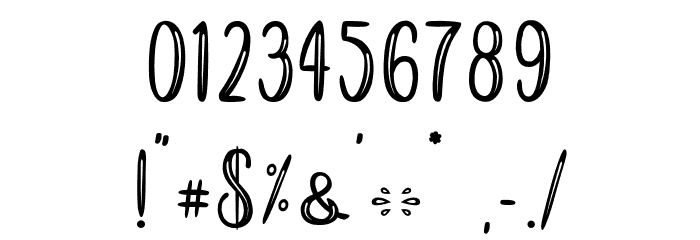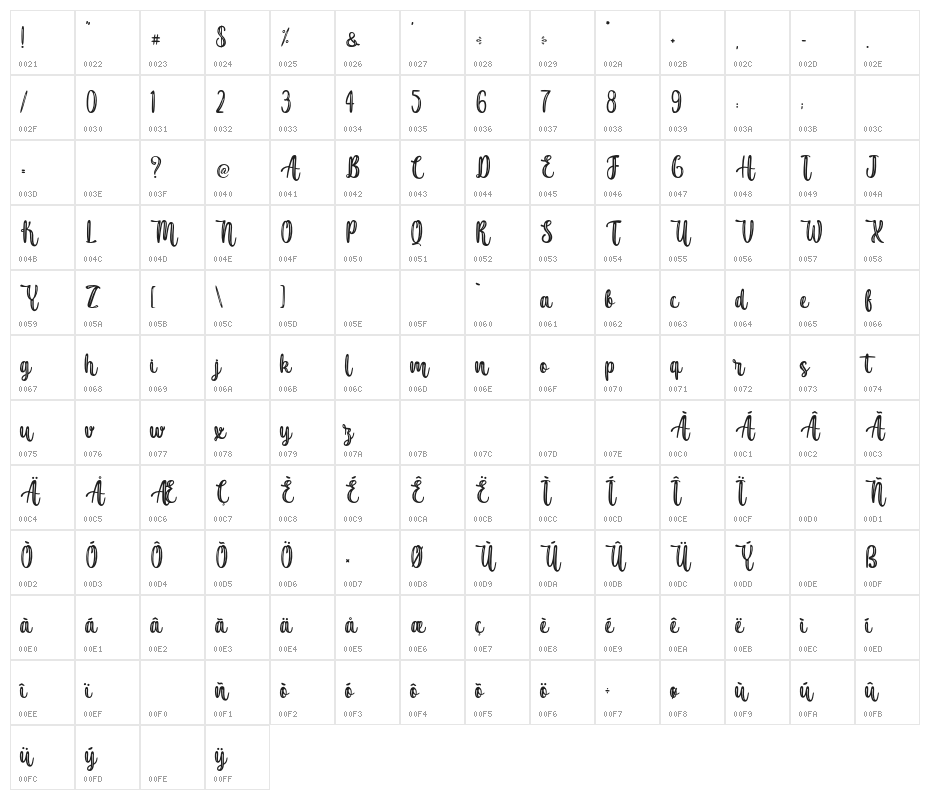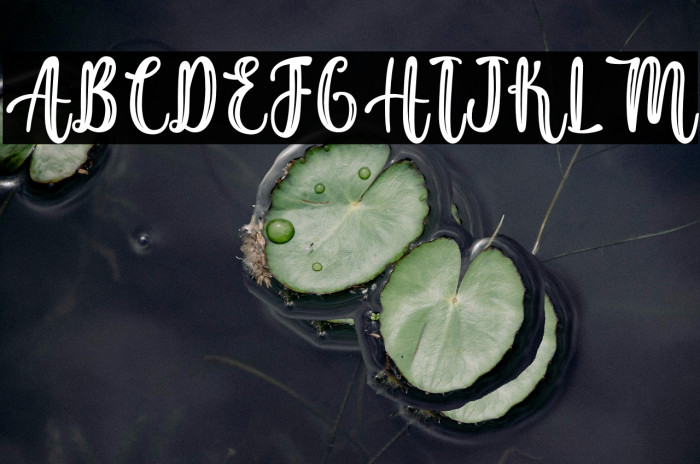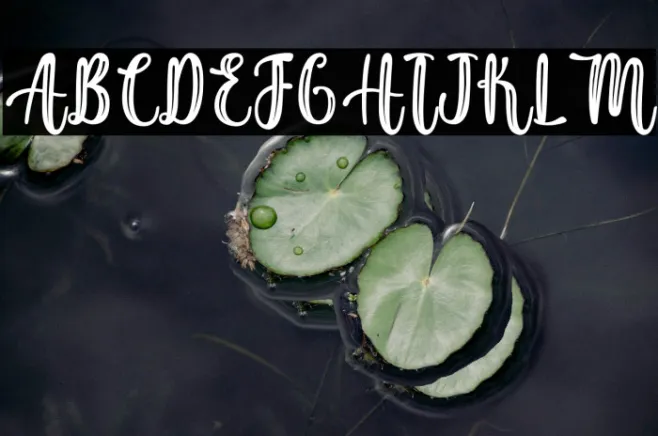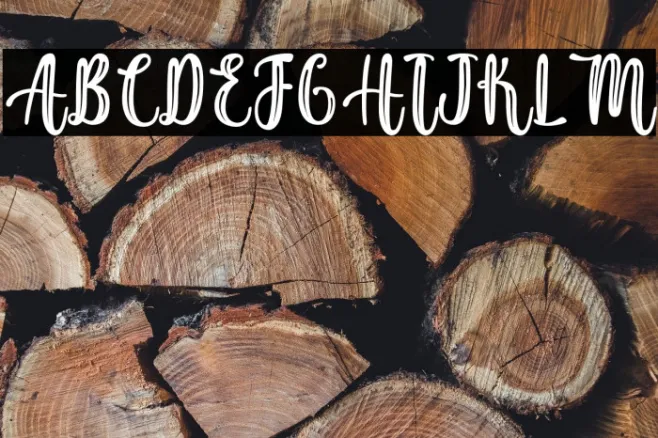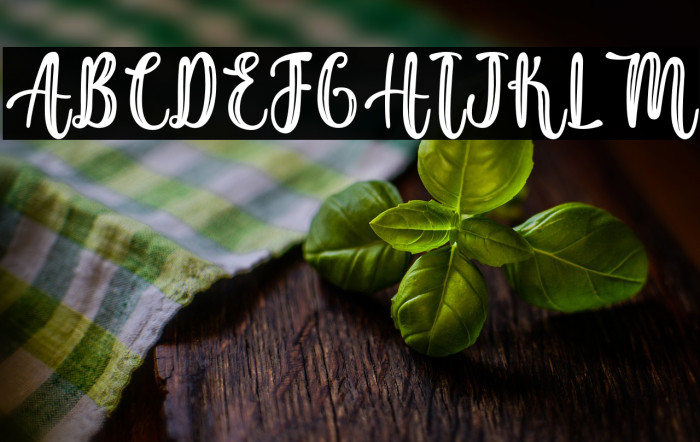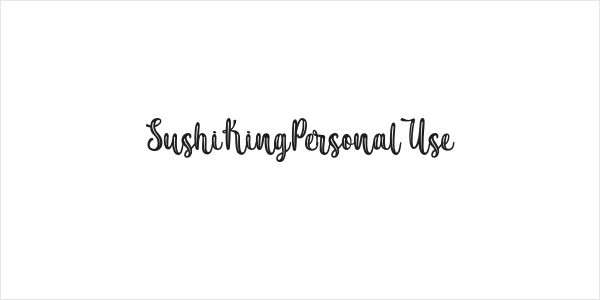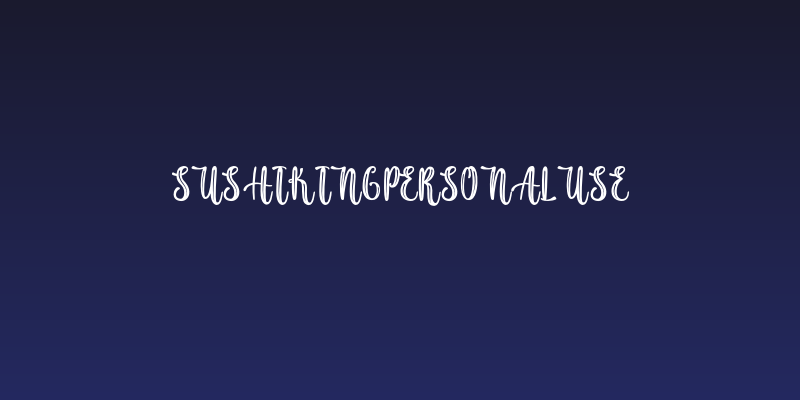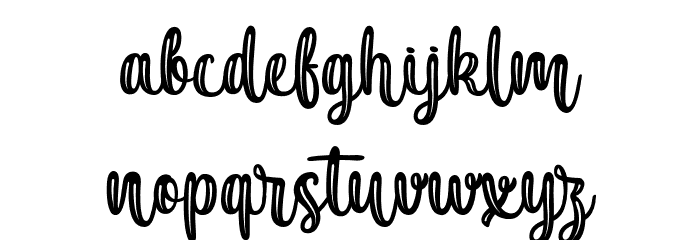
SushiKingPersonalUse Font
SushiKingPersonalUse Description
This font features a playful and energetic script style with bold, flowing strokes that create a sense of movement and dynamism. The letters are interconnected, giving it a cohesive and harmonious appearance. The uppercase letters are tall and elegant, while the lowercase letters maintain a consistent flow with rounded edges. The numbers and special characters are designed to match the overall style, ensuring uniformity across all elements. This font is perfect for adding a personal touch to any design, with its lively and inviting aesthetic.